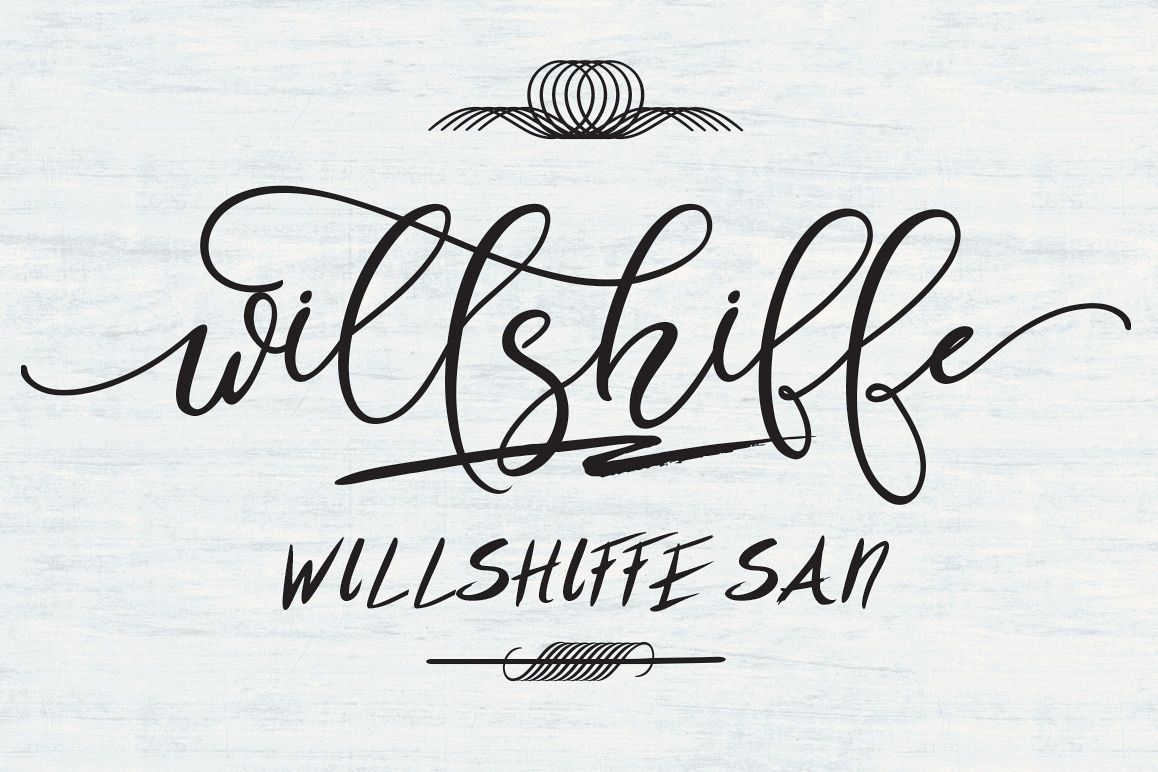
willshiffe and willshiffe san are two beautiful handwriting which I mix with a unique character ornaments, there is face shape, heart, scratches and others can have.
willshiffe and willshiffe san are very suitable for writing on greeting cards, invitations, magazine, titles, tools household and other needs all of you.